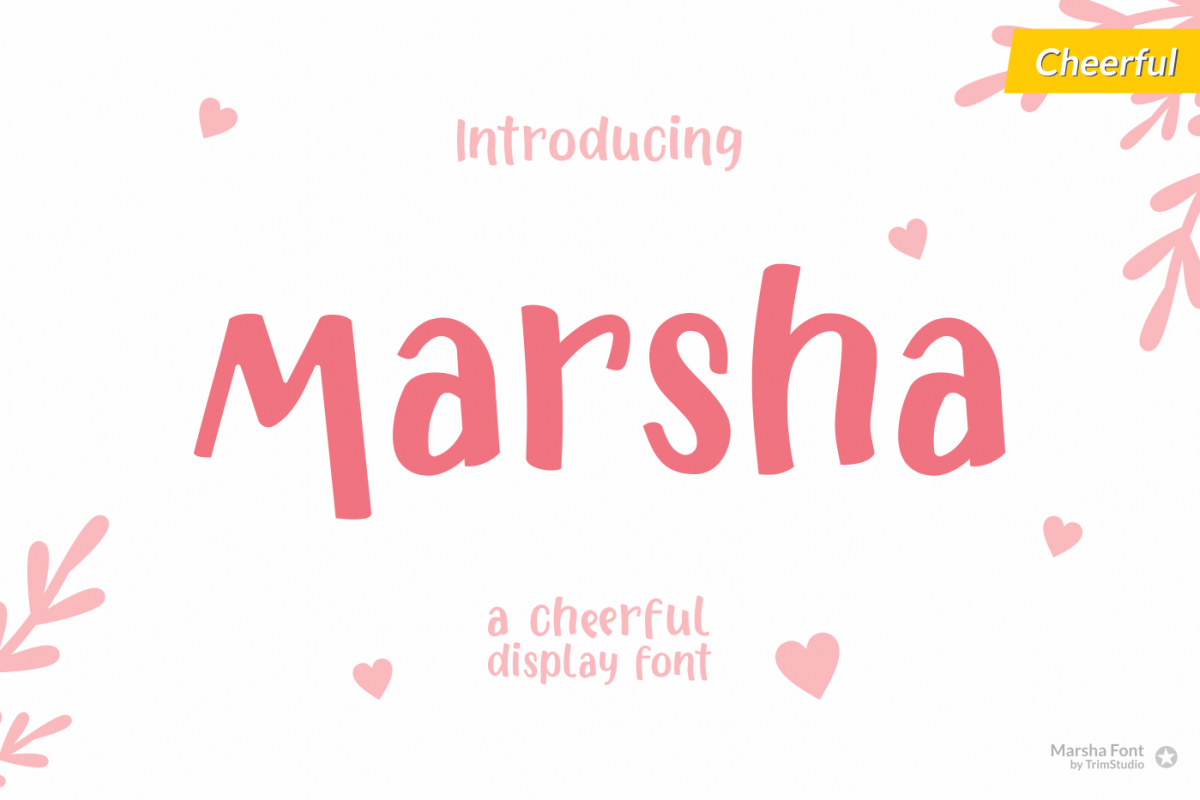
Marsha - Cheerful Font
Marsha - Cheerful Font, it gives your design cheers and fun feels.
This font is perfect for branding, logo, store, blog, invitations any many more!